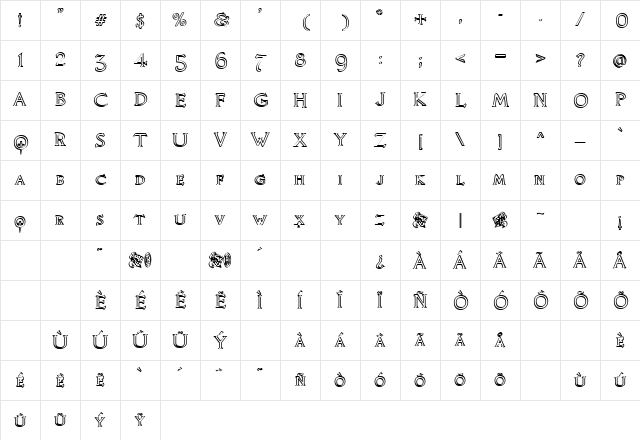
Knights Quest Callig Regular Free Font
Knights Quest Callig Regular
Knights Quest Callig Family
Complete Knights Quest Callig Regular glyph index. Displaying only characters natively supported by Knights Quest Callig Regular font.
Design Context for Knights Quest Callig
Knights Quest Callig is a composed and adaptable typeface that performs quietly and consistently across a wide range of design contexts.